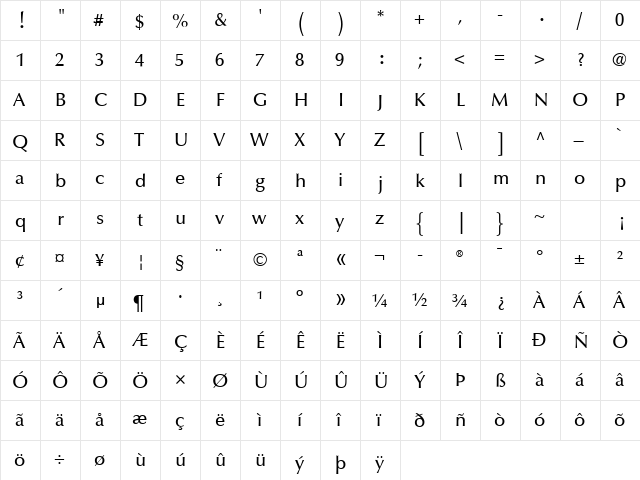
Mitra LT Light
Design Context for Mitra LT Typeface
Mitra LT takes a measured approach to typography — its balanced proportions and neutral character make it a reliable workhorse for both digital and print work. Its slender proportions lend an understated elegance to any composition.
Pro Tip: Pair Mitra LT with a font of contrasting weight or personality to build a more expressive typographic hierarchy.